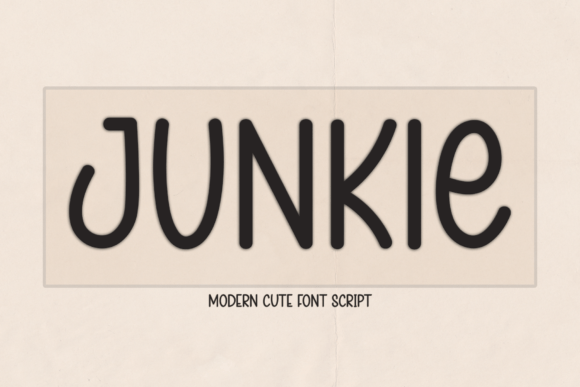
Junkie Font: The Perfect Handwritten Touch for Your Designs
The world of typography is vast and diverse, with numerous fonts to choose from, each with its unique character and style. If you’re looking for a font that exudes charm and elegance, look no further than the Junkie Font. This beautiful handwritten font is perfect for adding a personal touch to your designs, making them stand out from the crowd. In this article, we’ll explore the features and benefits of the Junkie Font, and how it can elevate your designs to the next level.
What is Junkie Font?
Junkie Font is a beautifully crafted handwritten font that feels equally charming and elegant. Its unique character set and stylish strokes make it perfect for a wide range of design applications. Whether you’re working on a wedding invitation, a thank you card, a quote, or a business card, Junkie Font is sure to impress.
One of the standout features of Junkie Font is its versatility. It can be used for both personal and professional projects, and its elegant style ensures that it will complement any design. The font is also highly legible, making it easy to read and understand, even at small sizes.
Design Applications for Junkie Font
Junkie Font is a highly versatile font that can be used for a wide range of design applications. Here are some of the most popular uses for this beautiful font:
- Wedding Invitations: Junkie Font is perfect for wedding invitations, adding a touch of elegance and sophistication to your wedding stationery.
- Thank You Cards: Express your gratitude in style with Junkie Font, making your thank you cards truly special.
- Quotes: Add a touch of inspiration to your quotes with Junkie Font, making them perfect for social media, blogs, or print materials.
- Greeting Cards: Whether it’s a birthday, holiday, or get well card, Junkie Font is sure to make your greeting cards stand out.
- Logos: Use Junkie Font to create a unique and memorable logo for your business or brand.
- Business Cards: Make a great impression with Junkie Font on your business cards, adding a touch of elegance and sophistication to your professional branding.
Benefits of Using Junkie Font
There are many benefits to using Junkie Font in your designs. Here are some of the most significant advantages:
- Unique and Memorable: Junkie Font is a unique and memorable font that will make your designs stand out from the crowd.
- Elegant and Sophisticated: The font’s elegant style ensures that it will add a touch of sophistication to any design.
- Highly Legible: Junkie Font is highly legible, making it easy to read and understand, even at small sizes.
- Versatile: The font can be used for a wide range of design applications, from personal projects to professional branding.
- Easy to Use: Junkie Font is easy to install and use, making it accessible to designers of all levels.
Tips and Tricks for Using Junkie Font
Here are some tips and tricks for getting the most out of Junkie Font:
- Use it Sparingly: While Junkie Font is a beautiful font, it’s best to use it sparingly to avoid overwhelming the design.
- Pair it with Other Fonts: Experiment with pairing Junkie Font with other fonts to create a unique and interesting design.
- Adjust the Size and Color: Don’t be afraid to adjust the size and color of Junkie Font to suit your design needs.
- Use it for Headings and Titles: Junkie Font is perfect for headings and titles, adding a touch of elegance and sophistication to your design.
In conclusion, Junkie Font is a beautiful handwritten font that feels equally charming and elegant. Its unique character set and stylish strokes make it perfect for a wide range of design applications, from wedding invitations to business cards. With its high legibility, versatility, and ease of use, Junkie Font is a great choice for designers looking to add a personal touch to their designs. Whether you’re working on a personal project or professional branding, Junkie Font is sure to impress.